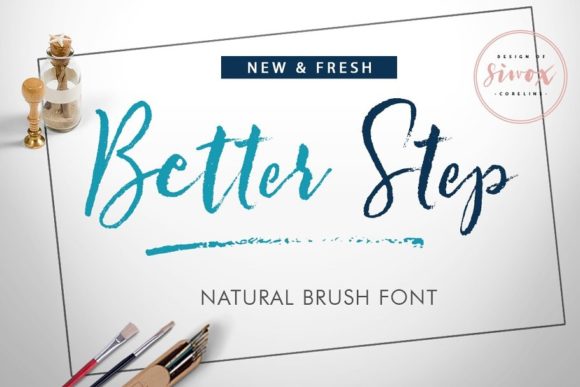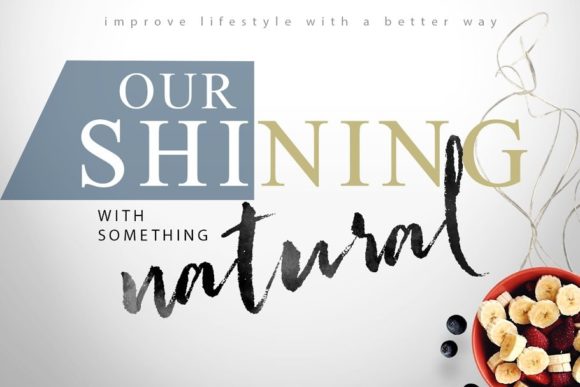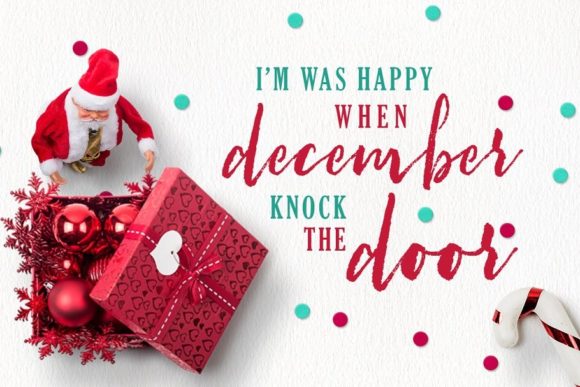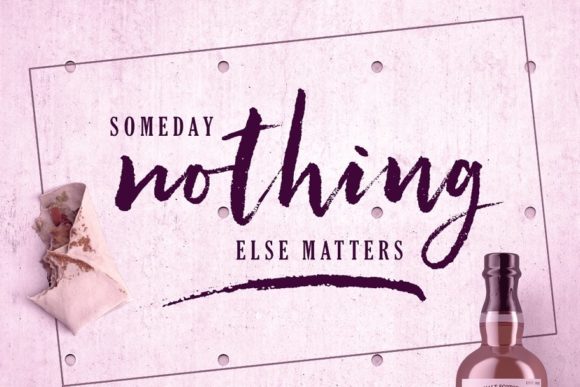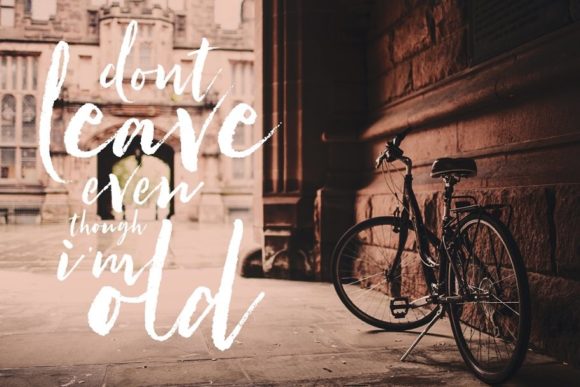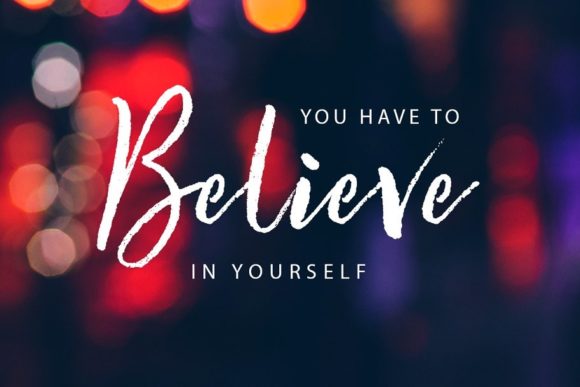
About Better Step Font
Better Step is a lovely and delicate brushed script font that exudes elegance and class. This font was particularly crafted for those who need a beautiful and refreshing look to their designs.